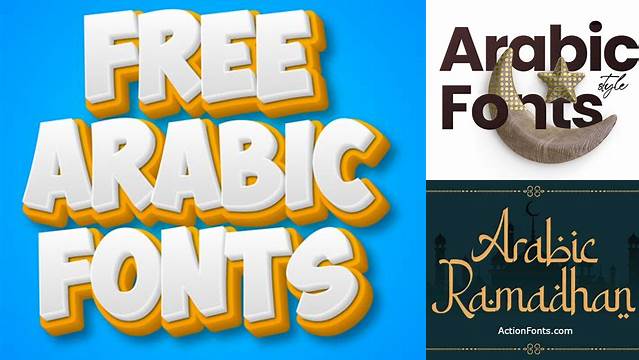
Free Arabic Font Generator: Create Stunning Text Styles
Hey guys! Ever wanted to add a touch of elegance and authenticity to your designs or social media posts? Look no further! With the rise of digital content, the demand for unique and stylish text has never been higher. And when it comes to beauty and intricacy, Arabic fonts stand out. But let's be real, finding the perfect Arabic font style and generating text in that style can sometimes feel like navigating a maze, right? That's where the magic of free Arabic font style text generators comes in. They're like your personal calligraphy artist, ready to transform your words into stunning visual masterpieces with just a few clicks. In this article, we're diving deep into the world of Arabic fonts, exploring the benefits of using text generators, and showcasing some of the best tools out there to help you create captivating content. Whether you're a seasoned designer, a social media enthusiast, or just someone who loves beautiful typography, this guide is for you. So, buckle up and let's get started on this exciting journey into the realm of Arabic font styles! We'll explore everything from the basics of Arabic calligraphy to the advanced features of online generators, ensuring you have all the knowledge you need to make your text truly stand out. Get ready to unleash your creativity and add a touch of Arabic flair to your next project!
Why Use Arabic Fonts?
So, why should you even bother with Arabic fonts? Well, let's break it down. Arabic script is renowned for its flowing, cursive style, making it visually striking and instantly recognizable. It's not just about the letters; it's about the art form. Using Arabic fonts can add a touch of sophistication and cultural richness to your projects. Think about it: whether you're designing a logo, creating social media graphics, or crafting invitations, the right Arabic font can elevate your work and make it truly memorable. The elegance and fluidity of the script naturally draw the eye, making it perfect for headlines, quotes, and any text you want to emphasize. But the benefits go beyond aesthetics. Using Arabic fonts can also help you connect with a wider audience. The Arabic-speaking world is vast and diverse, and incorporating Arabic typography into your designs shows respect and inclusivity. It's a powerful way to communicate across cultures and create content that resonates with a global audience. Plus, let’s not forget the versatility of Arabic fonts. There’s a wide range of styles, from traditional calligraphy to modern, minimalist designs. This means you can find the perfect font to match the tone and style of your project, whether it's formal and professional or fun and playful. Using Arabic fonts can also set you apart from the crowd. In a world saturated with generic typefaces, opting for an Arabic font can give your work a unique and distinctive edge. It's a subtle yet impactful way to showcase your creativity and attention to detail. Plus, the intricate nature of Arabic script lends itself well to various design elements, such as patterns, borders, and decorative accents. This makes Arabic fonts a fantastic choice for projects that require a touch of artistry and finesse. Whether you're aiming for elegance, cultural connection, or simply a unique look, Arabic fonts offer a world of possibilities for your creative endeavors. So, next time you're looking to make a statement with your text, consider the timeless beauty and versatility of Arabic typography.
Benefits of Using an Arabic Font Style Text Generator
Now that we've established why Arabic fonts are so awesome, let's talk about why using an Arabic font style text generator is a game-changer. Guys, these tools are seriously a lifesaver! Imagine you have this brilliant idea for a design, but you're struggling to find the right Arabic font and format your text perfectly. That's where a text generator swoops in to save the day. One of the biggest perks is the sheer convenience. With a text generator, you can experiment with different fonts and styles in seconds. No more endless scrolling through font libraries or wrestling with complicated design software. Just type in your text, choose a font, and boom – instant Arabic calligraphy magic! These generators also offer a ton of customization options. You can adjust the size, color, and spacing of your text, add cool effects, and even create unique graphic designs with your Arabic text. It's like having a professional designer at your fingertips, without the hefty price tag. Plus, many of these tools are completely free to use. That's right, you can create stunning Arabic text designs without spending a dime. This makes it super accessible for everyone, whether you're a student, a small business owner, or just someone who loves to create. Another major benefit is the time-saving aspect. Manually creating intricate Arabic calligraphy can take hours, if not days. But with a text generator, you can achieve the same results in a fraction of the time. This is especially useful when you're working on tight deadlines or need to create a lot of content quickly. Arabic font style text generators are also fantastic for those who aren't fluent in Arabic. Many generators offer transliteration options, allowing you to type in English and have it automatically converted into beautiful Arabic script. This opens up a whole new world of creative possibilities, even if you don't know the language. And let's not forget the inspiration factor! Browsing through the different font styles and design options can spark new ideas and help you discover creative approaches you might not have considered otherwise. It's a great way to push your boundaries and experiment with different looks. In short, using an Arabic font style text generator is like unlocking a treasure trove of creative potential. It's convenient, customizable, free, and a major time-saver. So, if you're looking to add some Arabic flair to your designs, these tools are definitely worth checking out.
Top Free Arabic Font Style Text Generators
Alright, let's get to the good stuff! You know why Arabic fonts are amazing, and you know how text generators can make your life easier. Now, let's dive into some of the best free Arabic font style text generators out there. These tools are like your secret weapon for creating stunning designs, and the best part? They won't cost you a thing. First up, we have Arabic Font Generator. This tool is super user-friendly and offers a wide range of fonts, from traditional calligraphy styles to modern and funky designs. You can easily customize your text with different colors, sizes, and effects, making it perfect for social media graphics, logos, and more. Plus, it has a real-time preview feature, so you can see exactly how your text will look before you download it. Next, there's Cool Fancy Text Generator. Don't let the name fool you – this generator is a powerhouse for Arabic fonts too. It has a ton of cool and unique styles that you won't find anywhere else. Whether you're looking for something elegant and refined or bold and eye-catching, this tool has got you covered. The interface is simple and intuitive, so you can get creative in no time. Another fantastic option is LingoJam. This generator is a bit different from the others, as it focuses on translating your text into various unique styles, including Arabic calligraphy. It's a great choice if you want to add a touch of authenticity to your designs. The best part is that it offers real-time translation, so you can see how your text will look in Arabic script as you type. If you're looking for a generator that's both powerful and easy to use, check out FontGet. This tool has a massive library of Arabic fonts, and it's constantly updated with new styles. You can browse through the fonts by category, making it easy to find exactly what you're looking for. Plus, it offers a variety of customization options, so you can create text that perfectly matches your vision. Last but not least, we have Texty Stylish Name Maker. This generator is perfect for creating stylish names and usernames in Arabic script. It has a ton of cool fonts and effects that are specifically designed for names, making it a great choice for social media profiles, gaming handles, and more. The interface is clean and modern, and it's super easy to use. So, there you have it – a roundup of some of the top free Arabic font style text generators. These tools are a fantastic way to add some Arabic flair to your designs, and they're all available for free. So, go ahead and give them a try, and let your creativity flow!
How to Use an Arabic Font Style Text Generator
Okay, so you're convinced that an Arabic font style text generator is the way to go. Awesome! But how do you actually use one? Don't worry, guys, it's super easy. Let's walk through the basic steps so you can start creating stunning Arabic text designs in no time. First things first, you'll need to choose a generator. We've already covered some great options, like Arabic Font Generator, Cool Fancy Text Generator, and LingoJam. Pick one that seems like a good fit for your needs and head over to their website. Once you're on the site, you'll usually see a text box where you can type in your text. This is where the magic starts! Just type in the words or phrases you want to transform into beautiful Arabic script. Next, you'll want to explore the different font options. Most generators offer a wide variety of styles, from traditional calligraphy to modern designs. Take some time to browse through the fonts and see what catches your eye. Some generators even have a preview feature, so you can see how your text will look in each font before you commit. Once you've chosen a font, it's time to get creative with customization. This is where you can really make your text stand out. Look for options to change the size, color, and spacing of your text. Some generators also offer cool effects, like shadows, gradients, and outlines. Don't be afraid to experiment and see what works best for your design. If you're not fluent in Arabic, don't worry! Many generators offer transliteration options. This means you can type in English, and the generator will automatically convert it into Arabic script. It's a fantastic feature that opens up a world of possibilities, even if you don't know the language. Once you're happy with your design, it's time to download it. Most generators offer several download options, like PNG, JPG, or SVG. Choose the format that best suits your needs and save your creation to your computer. And that's it! You've just created a stunning Arabic text design using a free online generator. See, I told you it was easy! Now you can use your design for all sorts of projects, from social media graphics to logos to invitations. The possibilities are endless. So, go ahead and unleash your creativity. With a little practice, you'll be a pro at using Arabic font style text generators in no time.
Tips for Choosing the Right Arabic Font Style
Choosing the right Arabic font style can make or break your design. It's like picking the perfect outfit for an occasion – you want it to match the mood and message you're trying to convey. So, how do you make sure you're selecting the best font for your project? Let's dive into some tips and tricks to help you nail it every time. First and foremost, consider the tone of your message. Are you going for something elegant and formal? Or perhaps something fun and playful? Traditional Arabic calligraphy fonts, like Naskh and Thuluth, are perfect for adding a touch of sophistication and grace. They're often used in formal invitations, certificates, and religious texts. On the other hand, if you're looking for something more modern and casual, you might want to explore sans-serif Arabic fonts or more contemporary calligraphy styles. These fonts tend to be cleaner and more approachable, making them a great choice for social media graphics, logos, and websites. Next, think about the context of your design. Where will your text be displayed? If you're designing something for print, you'll want to choose a font that's legible at smaller sizes. Intricate calligraphy fonts can look stunning, but they might become difficult to read if they're too small. For digital designs, you have a bit more flexibility, but you still want to ensure your font is clear and easy to read on screens. Another important factor to consider is your target audience. Who are you trying to reach with your message? If you're creating content for an Arabic-speaking audience, you'll want to choose a font that's culturally appropriate and easy for them to read. If you're targeting a more general audience, you might want to opt for a font that's both visually appealing and accessible to non-Arabic speakers. Don't be afraid to experiment with different fonts and styles. Try out a few different options and see what looks best for your project. You can even mix and match fonts to create a unique and dynamic look. Just be sure to use fonts that complement each other and avoid using too many different styles in one design. And finally, remember to pay attention to the details. The spacing, kerning, and leading of your text can have a big impact on its readability and visual appeal. Take the time to fine-tune these elements to ensure your text looks its best. Choosing the right Arabic font style is all about finding the perfect balance between aesthetics and functionality. By considering the tone of your message, the context of your design, and your target audience, you can select a font that not only looks beautiful but also effectively communicates your message.
So there you have it, guys! We've journeyed through the fascinating world of Arabic fonts and explored the wonders of free Arabic font style text generators. Hopefully, you're now feeling inspired and ready to unleash your creativity. We've covered why Arabic fonts are so visually appealing and culturally significant, the numerous benefits of using text generators, some top-notch free tools to get you started, and how to choose the perfect font for your project. The key takeaway here is that adding Arabic flair to your designs doesn't have to be a daunting task. With the right tools and a little bit of know-how, you can create stunning text designs that capture attention and convey your message with elegance and authenticity. Whether you're a seasoned designer or just starting out, Arabic font style text generators are a game-changer. They offer convenience, customization, and a wealth of creative possibilities, all at your fingertips. Plus, with so many free options available, there's no reason not to give them a try. Remember, the right font can elevate your work and help you connect with a wider audience. So, don't be afraid to experiment and explore different styles. Try out traditional calligraphy fonts for a touch of sophistication, or go for modern designs for a more contemporary look. Consider the tone of your message, the context of your design, and your target audience to choose the font that best represents your vision. And most importantly, have fun with it! Design is all about self-expression, so let your creativity flow and see where it takes you. Whether you're crafting social media graphics, designing a logo, or creating invitations, incorporating Arabic fonts can add a unique and captivating touch. So, go ahead and give it a try – you might just discover a whole new world of design possibilities. With the tips and tools we've discussed, you're well-equipped to create stunning Arabic text designs that will impress and inspire. So, what are you waiting for? Start generating some magic today!